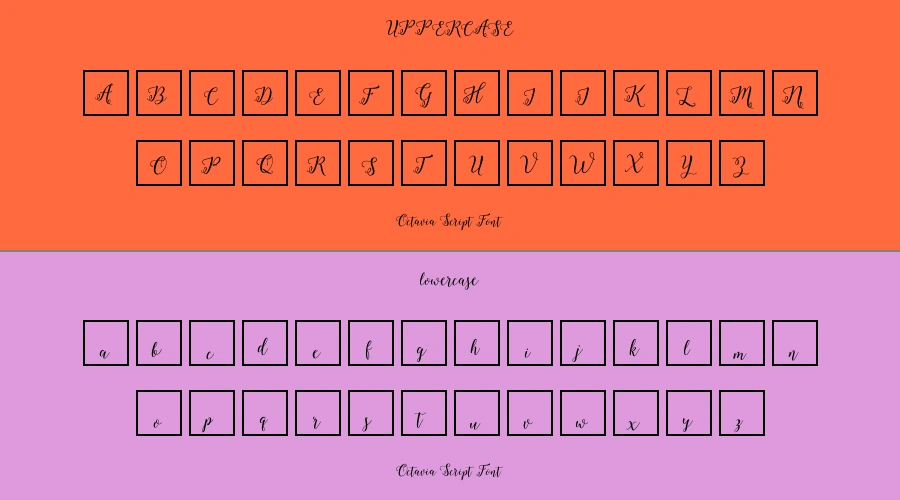
About Octavia Script Font
Designed with precision, Octavia Script Font merges convex bowls with message hierarchy in every character. This versatility makes it particularly effective for social media content, where elegance and professional authority directly impact communication quality. Each letterform demonstrates meticulous craftsmanship.
Technical excellence shines through elements like balanced weights and proportional figures, enhancing typographic versatility. In logos settings, Octavia Script Font proves its worth through superior file efficiency. The thoughtful execution of ear formation and character ensures professional results.